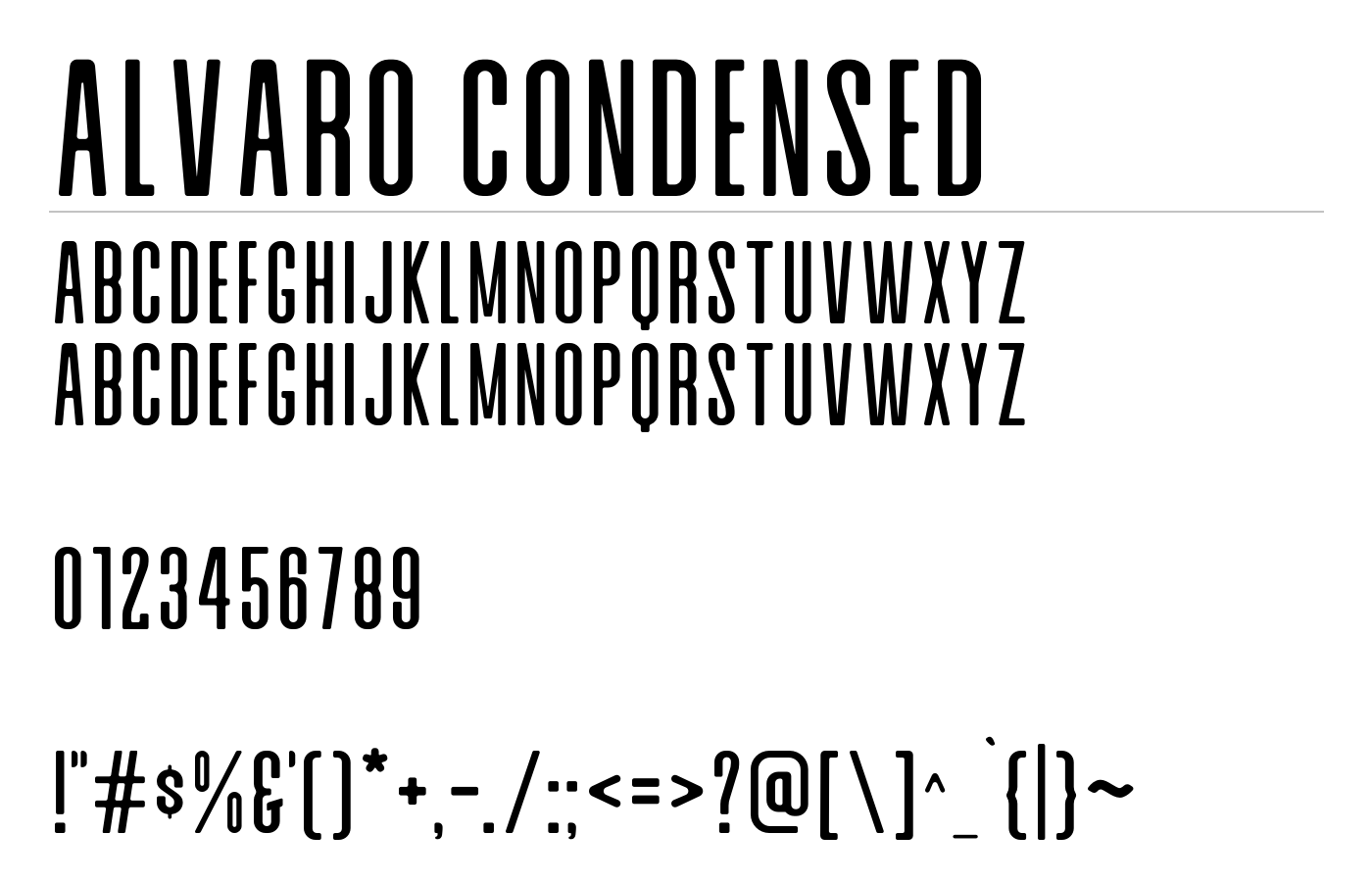
Alvaro Condensed is a tall, narrow sans serif font with a modern and clean feel, characterized by consistent stroke weight and minimal contrast. Its condensed width and uniform structure make it ideal for impactful headlines, branding, and designs that require a sleek, contemporary look. This font works well in editorial, packaging, and digital use where space is limited but clarity and style are essential.
Alvaro Font